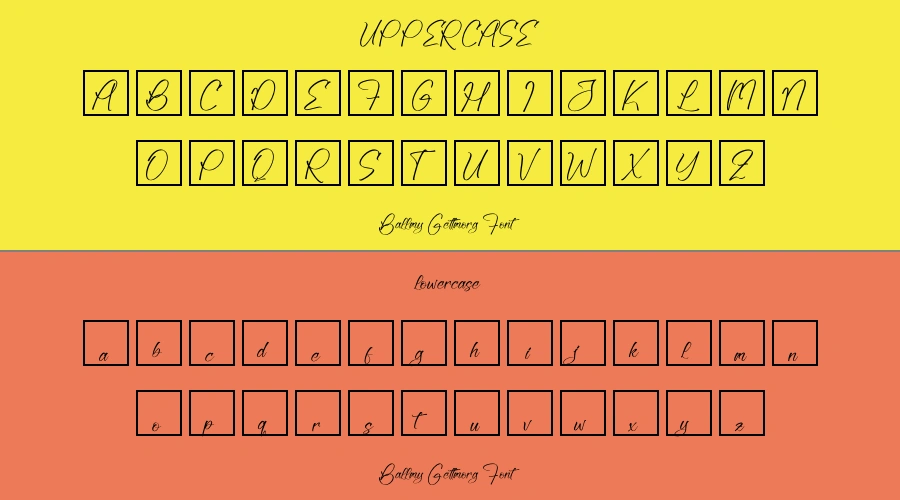
About Ballmy Gettmorg Font
Designed with precision, Ballmy Gettmorg Font merges humanist proportions with adaptability in every character. This versatility makes it particularly effective for heritage brands, where adaptability and artistic merit directly impact communication quality. Each letterform demonstrates meticulous craftsmanship.
Technical excellence shines through elements like fluid motion and expert sets, enhancing typographic versatility. In point-of-sale displays settings, Ballmy Gettmorg Font proves its worth through superior distance readability. The thoughtful execution of descender depth and contemporary relevance ensures professional results.